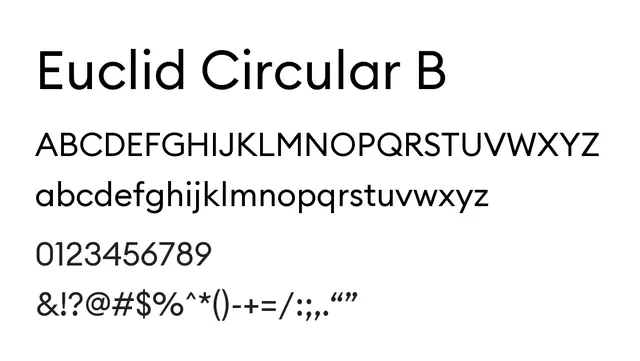
Euclid Circular B
Euclid Circular B, modern, clean
A geometric sans merging circular softness with squared efficiency for modern technical interfaces.
Excellent for technology products and fintech applications. The squared letterforms provide structural clarity and efficiency while rounded terminals maintain approachability. Highly legible at all weights.
Works well with a serif like Roboto Slab for hybrid designs, or IBM Plex Mono for code-heavy interfaces.